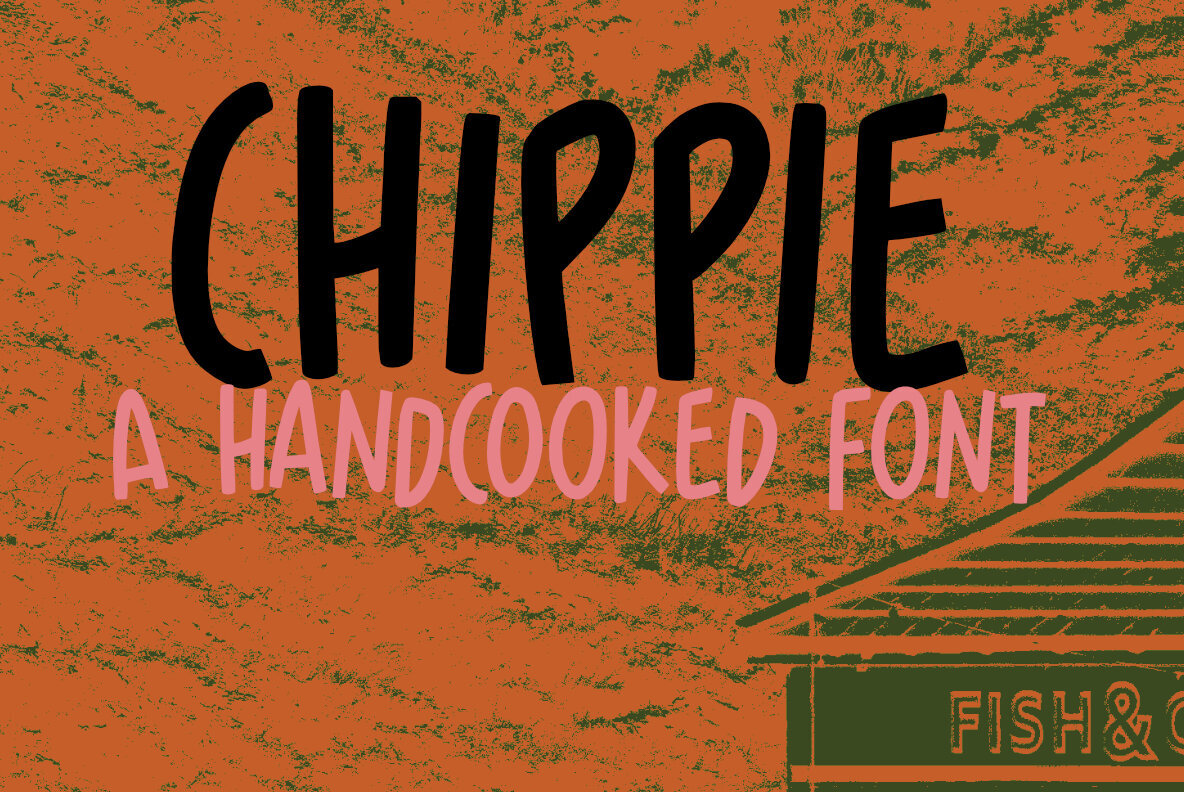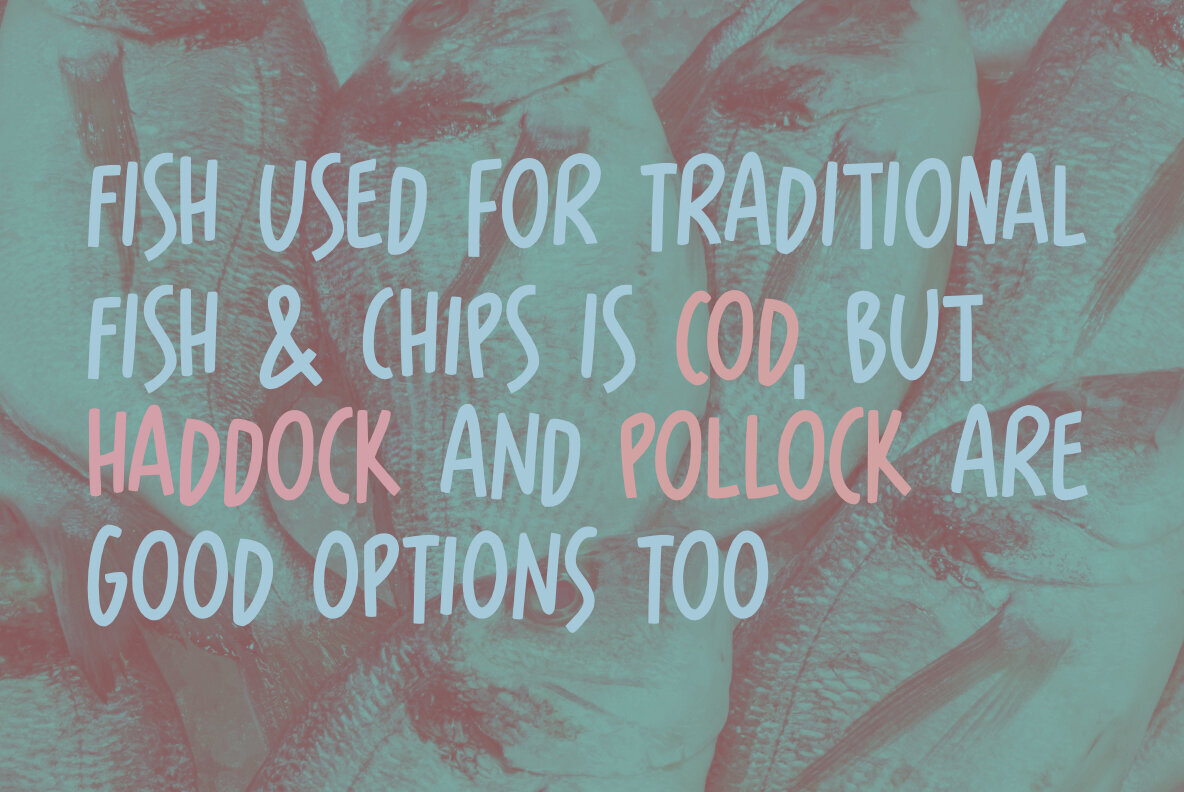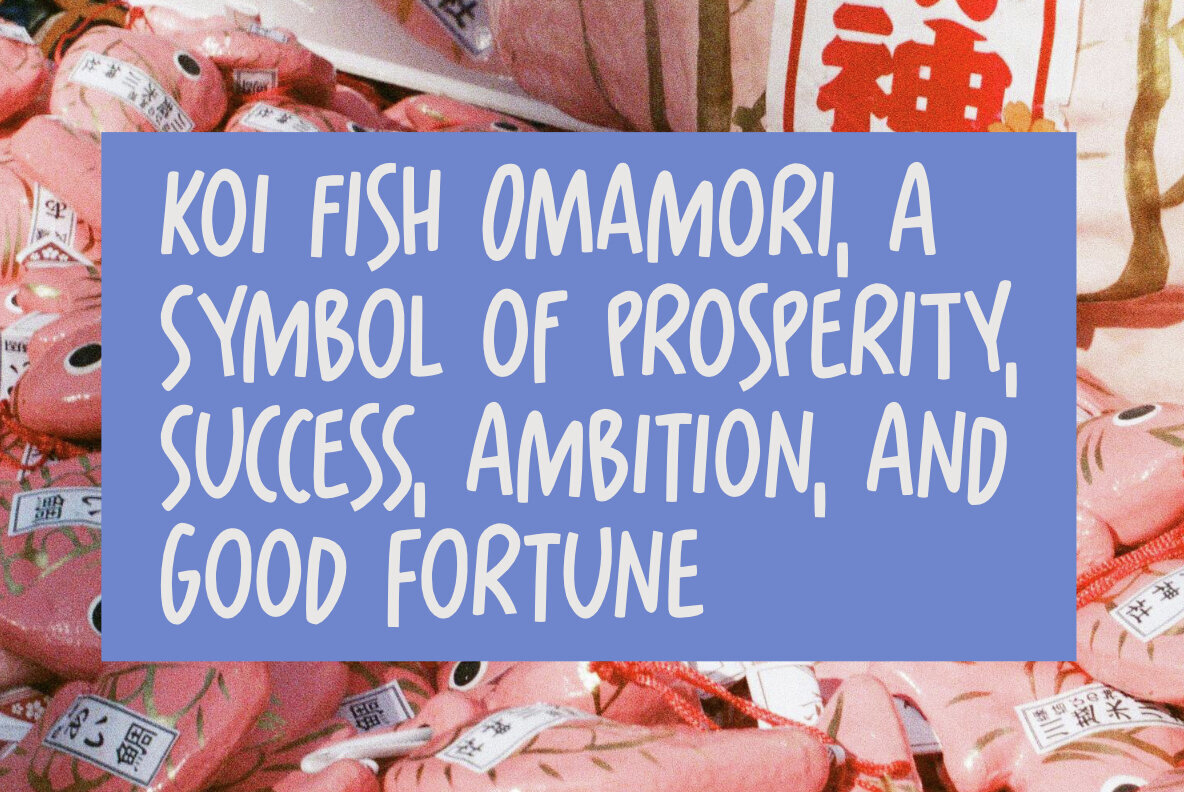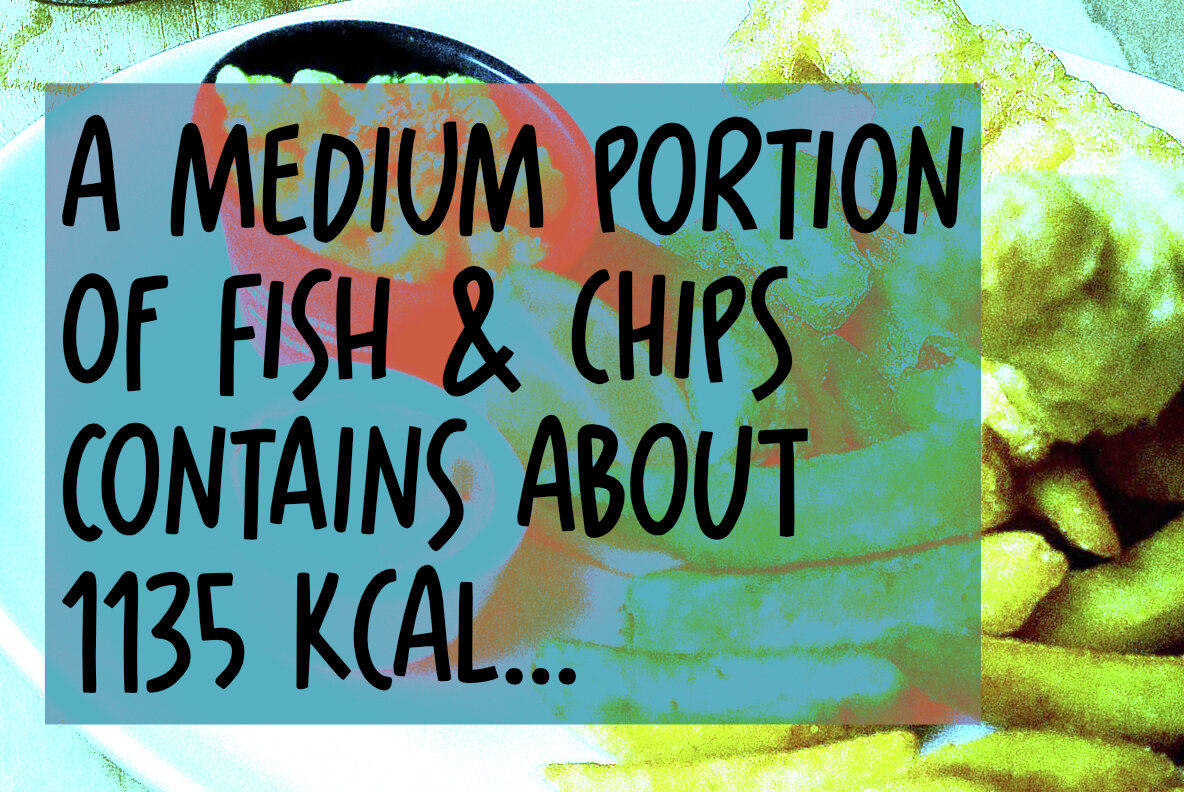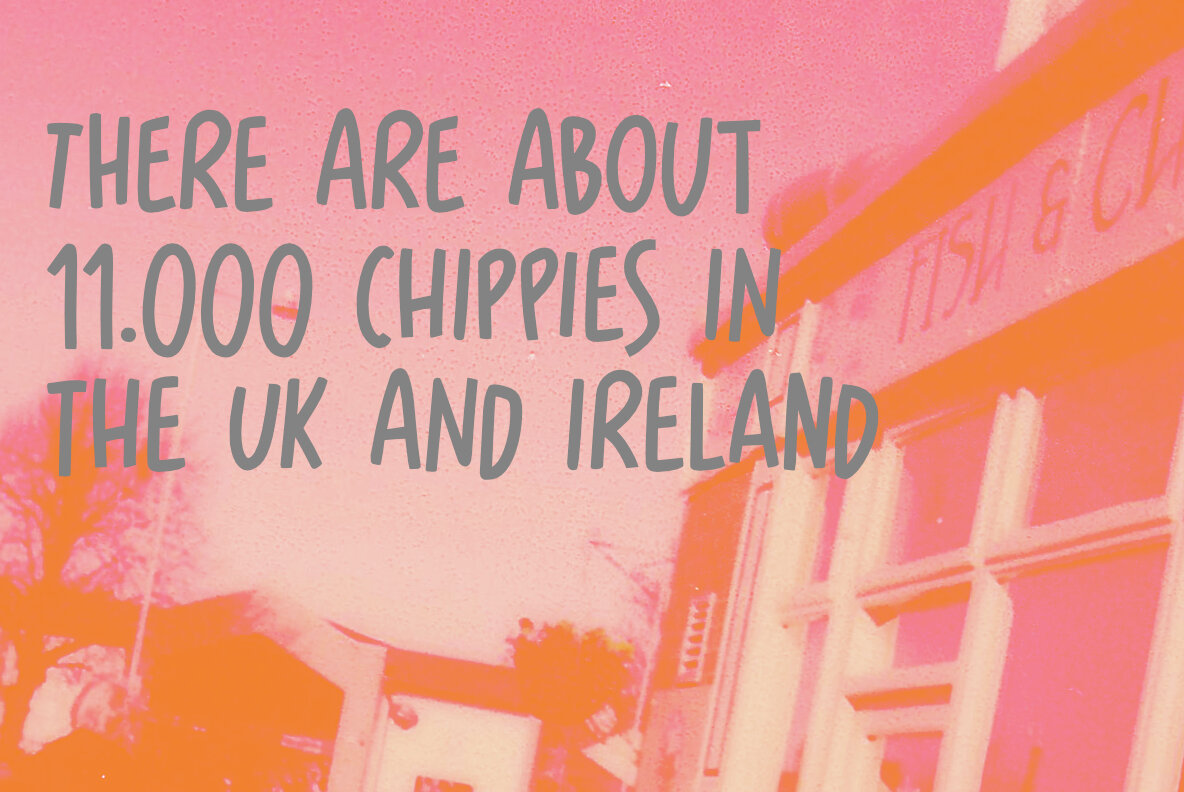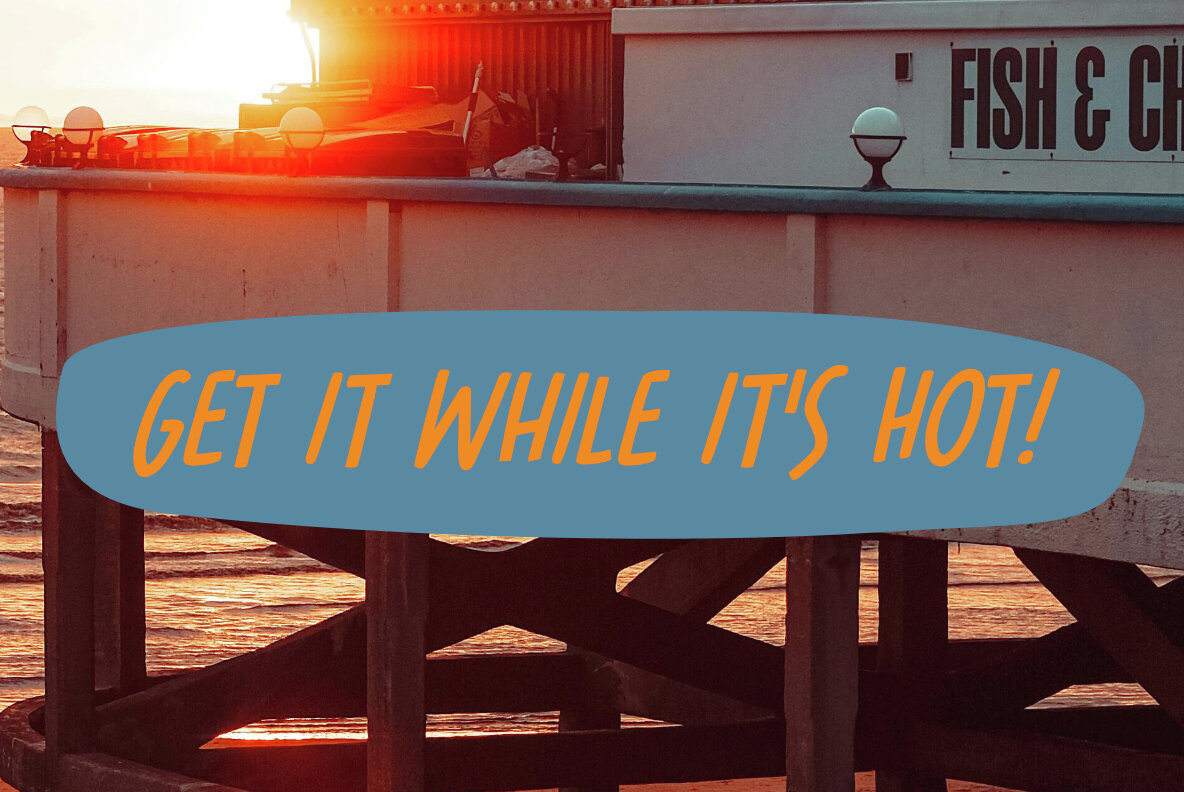
Chippie Font
Chippie Regular
Chippie Italic
Chippie is an endearing nod to the quintessential British fish and chip shop, capturing the spirit of this beloved cultural staple. Widely spread across the UK and Ireland, these eateries provide a taste of tradition, perfect for punctuating your day with a satisfying meal. Anticipating an adventure? This summer, we're cycling through England, starting with a ferry journey from Hook of Holland to Harwich. Planning for a hearty welcome upon arrival, we’ve booked a charming pub campsite that serves dinner—ideal for indulging in quintessential fish and chips paired with a refreshing pint. Chippie, the handmade font, embodies a playful and slightly offbeat character, bringing a whimsical touch to your designs. Perfect for book covers, product labels, or a menu at your local chippie, Chippie offers versatility and charm. Its distinctive style adds a unique flair to any project.Chippie: A Playful Typeface with a British Twist